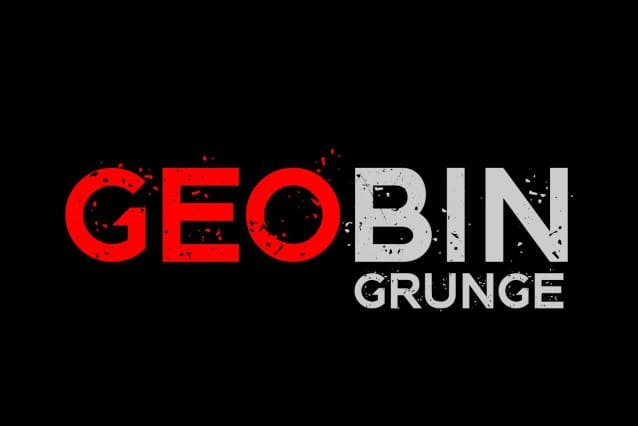
Geo Bin Font
Geo Bin Font, is a typeface with a modern and conceptual design of capital letters that has two styles between: Regular and Grunge, its appearance is futuristic and geometric which goes very well with different art styles and compositions.